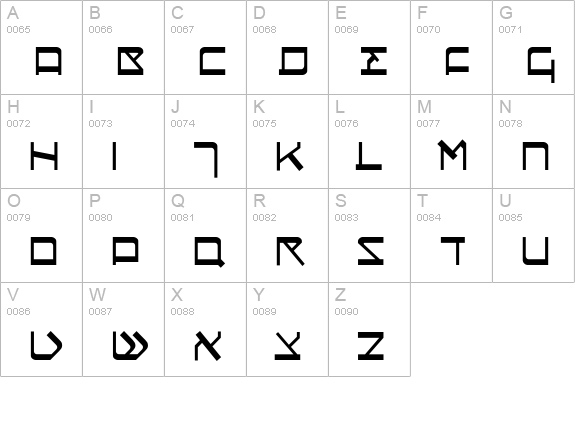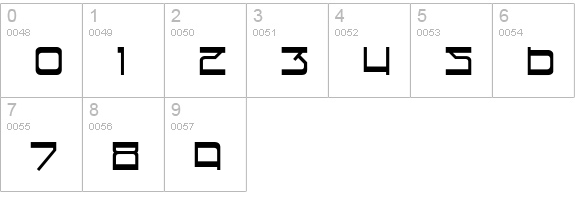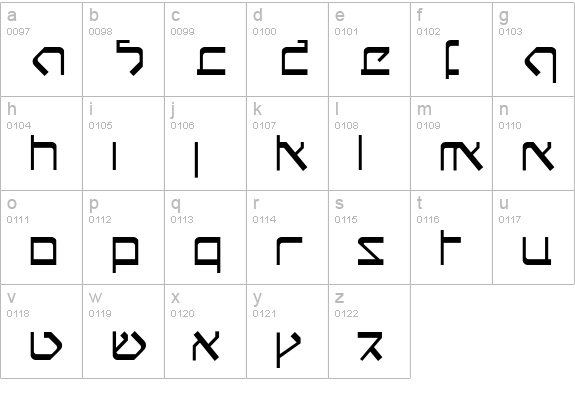
Circumcision-Sans Font Details
Circumcision-Sans font is a modern and sleek typeface that exudes sophistication and elegance. With its clean lines and contemporary design, Circumcision-Sans adds a touch of professionalism to any project. This versatile font is perfect for a wide range of applications, from branding and packaging to web design and advertising. The best part? Circumcision-Sans is completely free to download at FontsMarket.com. Now you can elevate your design projects without breaking the bank. Don't miss out on this opportunity to enhance your work with a high-quality font that is both stylish and practical. Download Circumcision-Sans today and see the difference it can make in your designs.